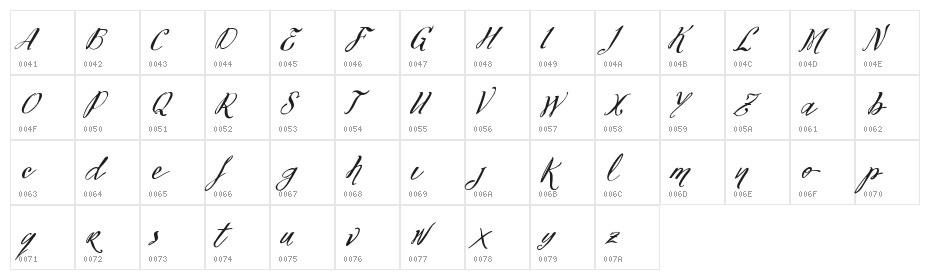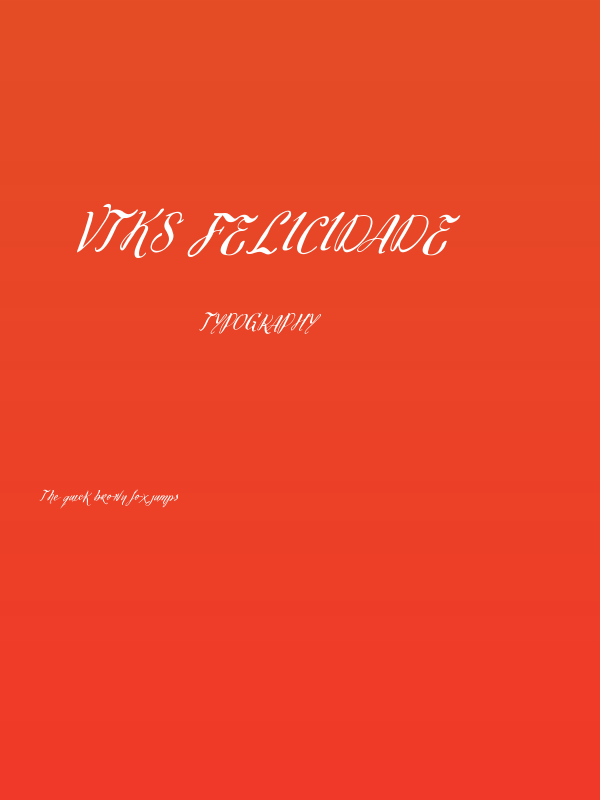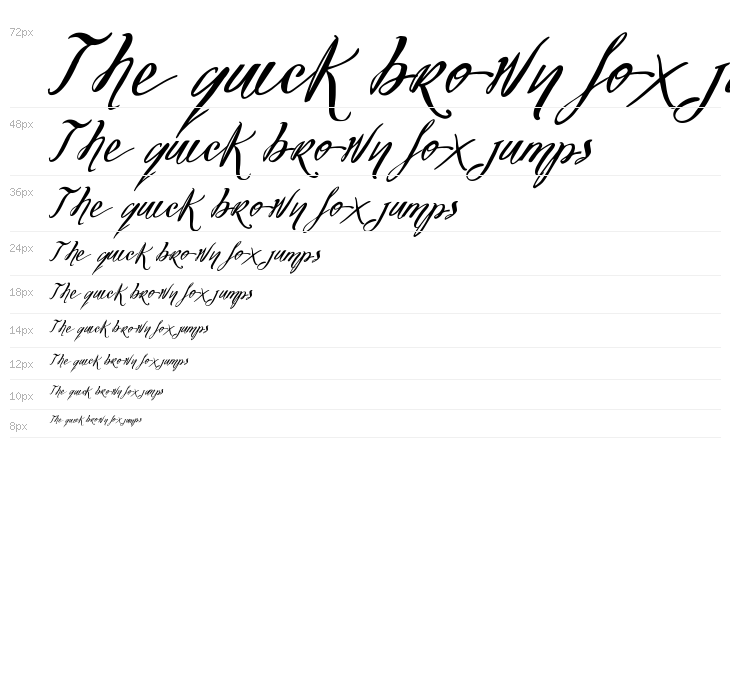
Vtks Felicidade 2016 Font
Vtks Felicidade 2016 Description
This font features an elegant and flowing script style, characterized by its fluid and dynamic strokes. The letters exhibit a natural handwritten appearance, with varying thickness that adds a sense of movement and grace. The uppercase letters are bold and prominent, while the lowercase letters maintain a consistent flow, enhancing readability. The overall design is both artistic and sophisticated, making it suitable for creative and decorative purposes. The font's unique style is ideal for projects that require a personal touch, such as invitations, greeting cards, and branding materials.
| Proposed Projects | Ideal for wedding invitations, greeting cards, branding, and decorative projects. |